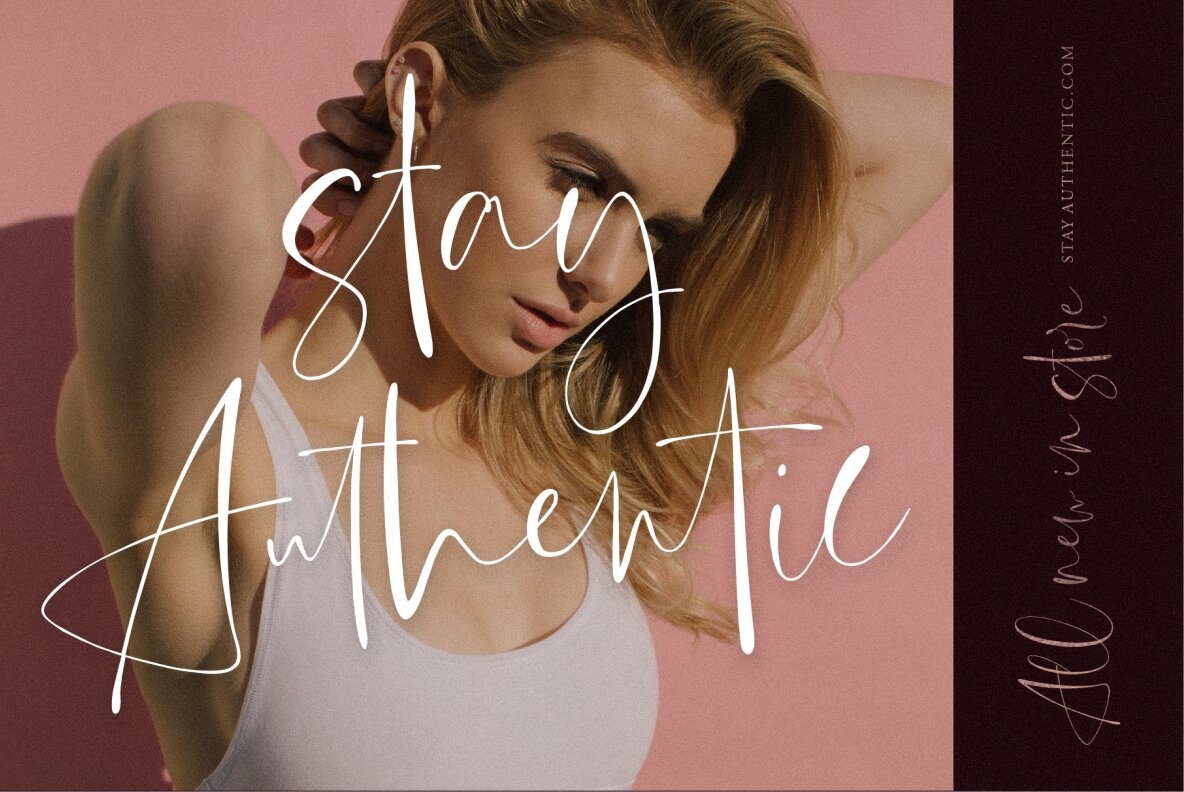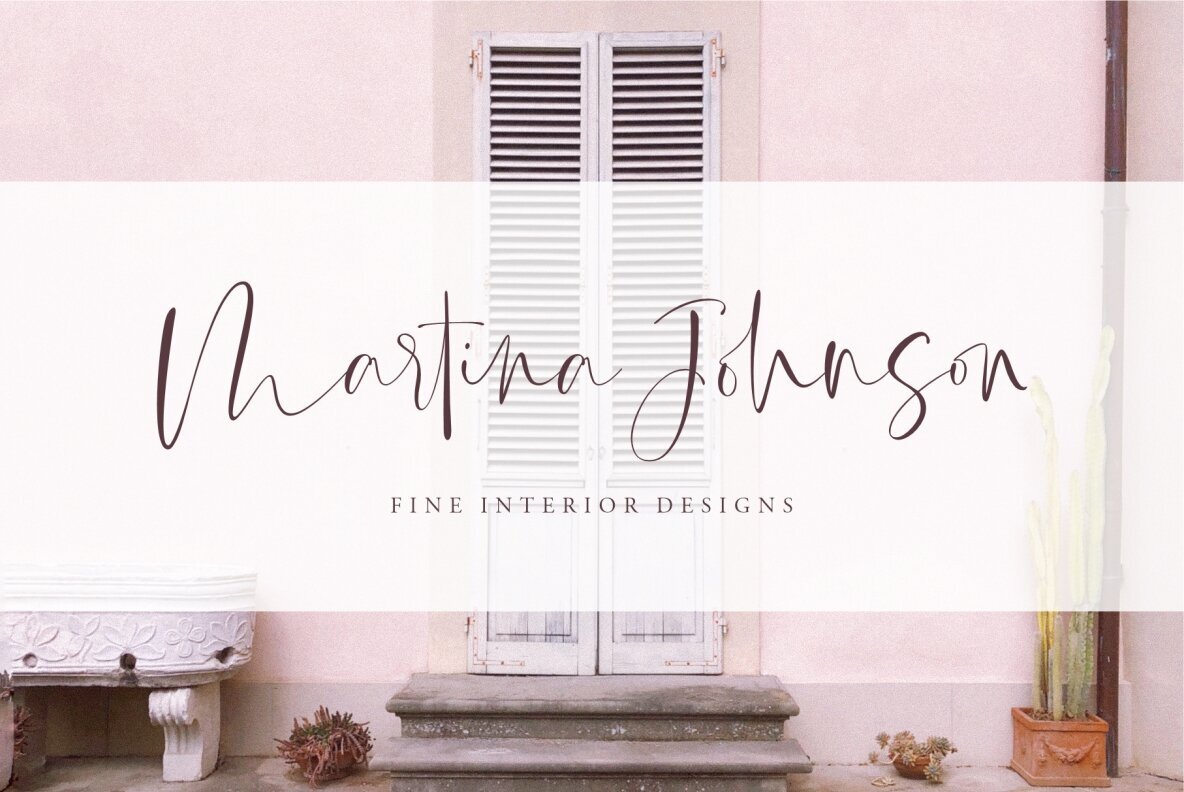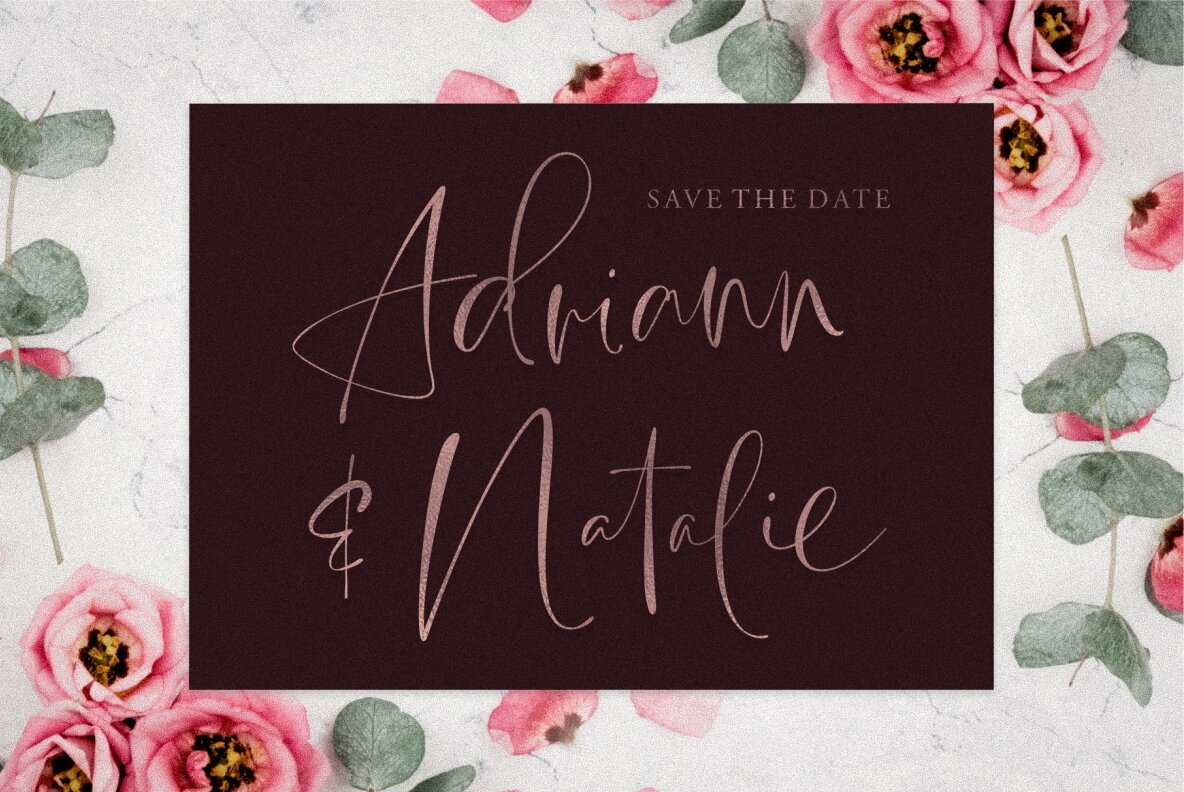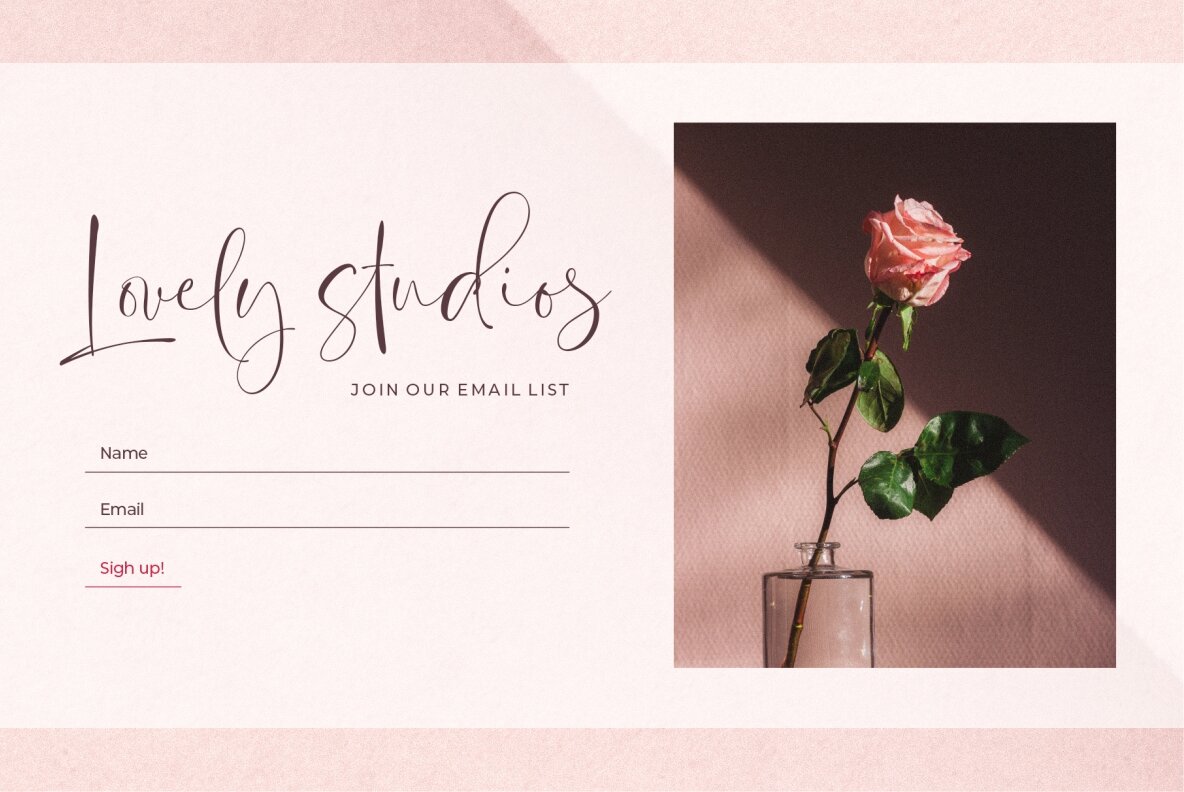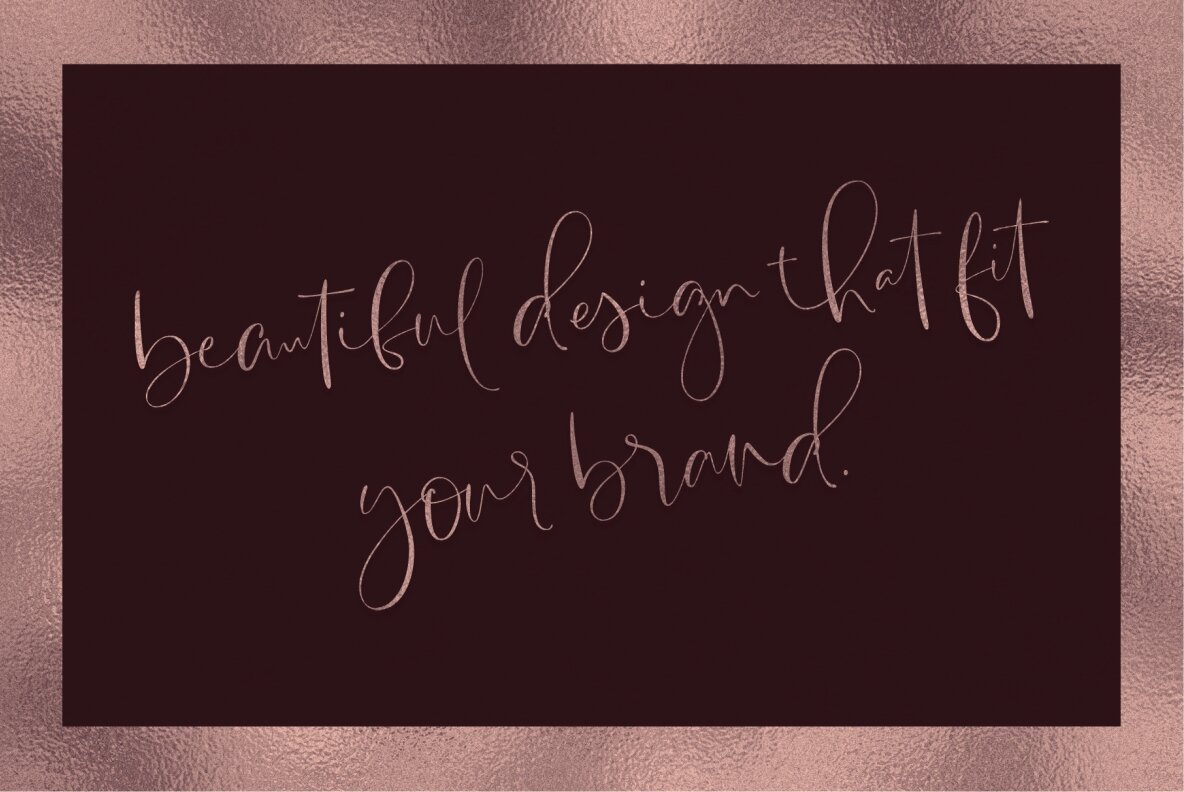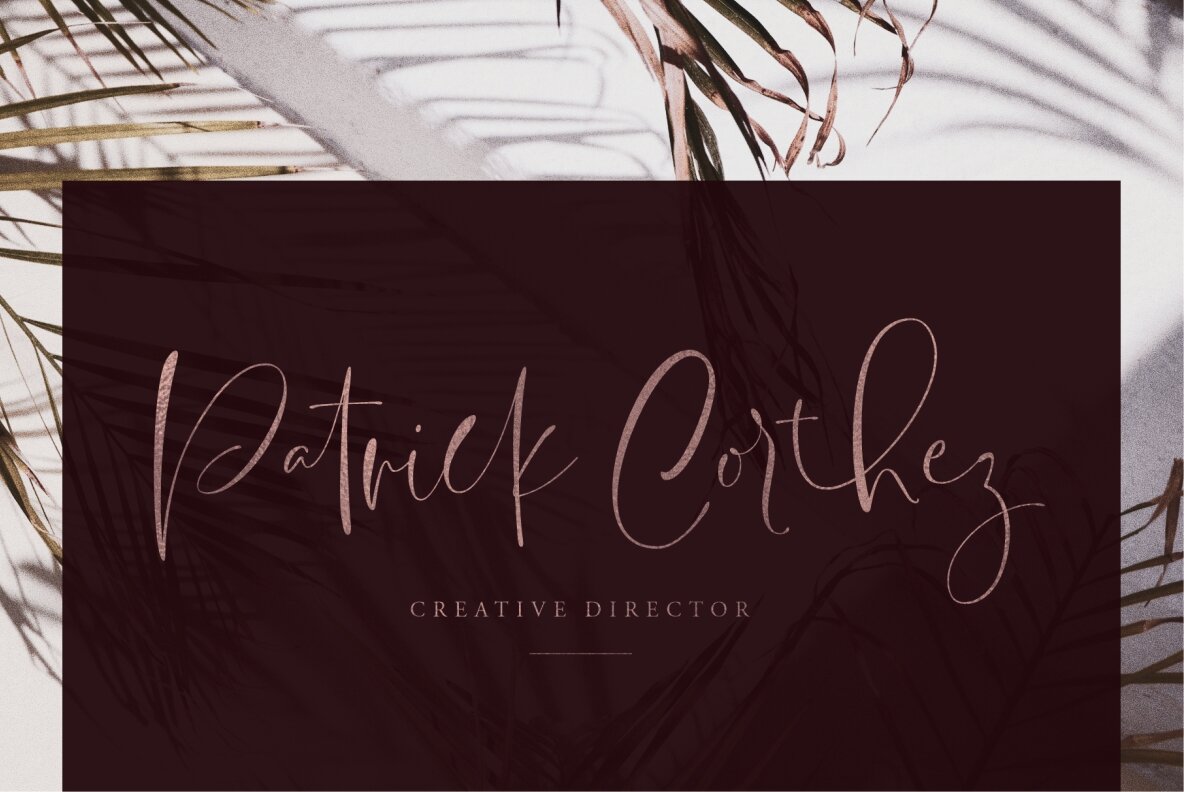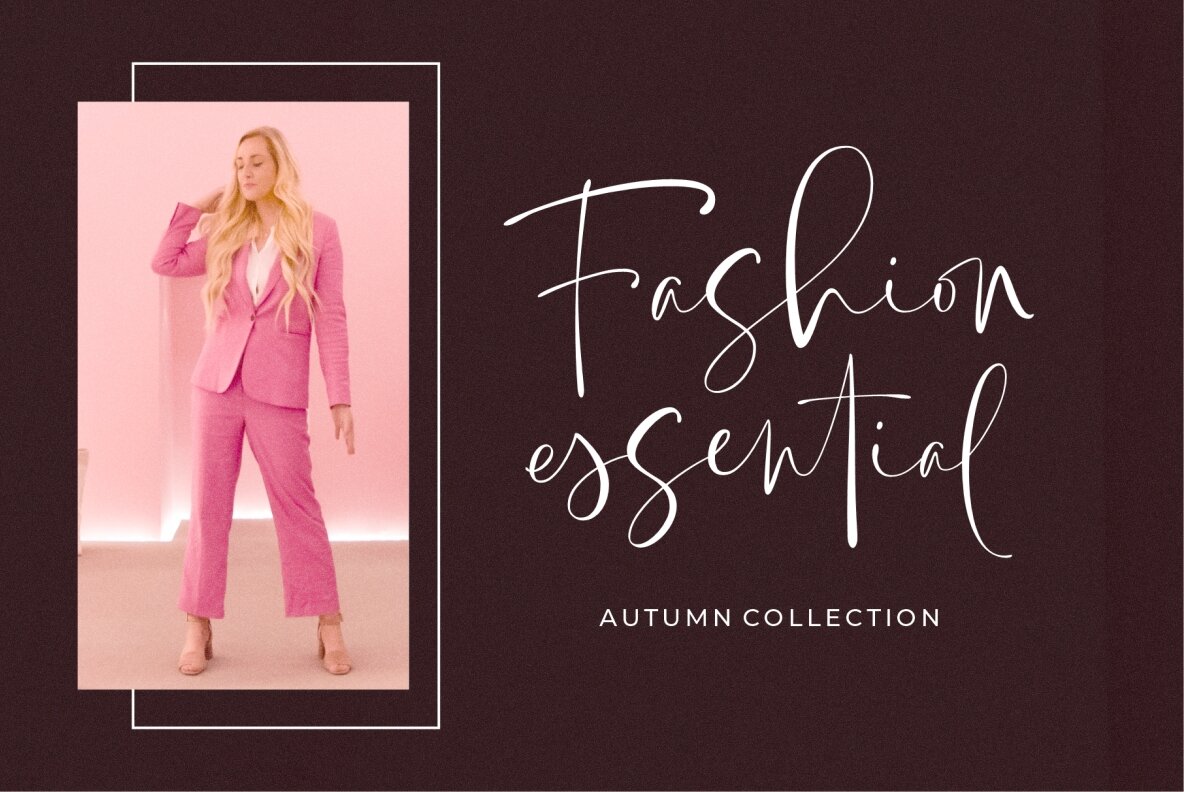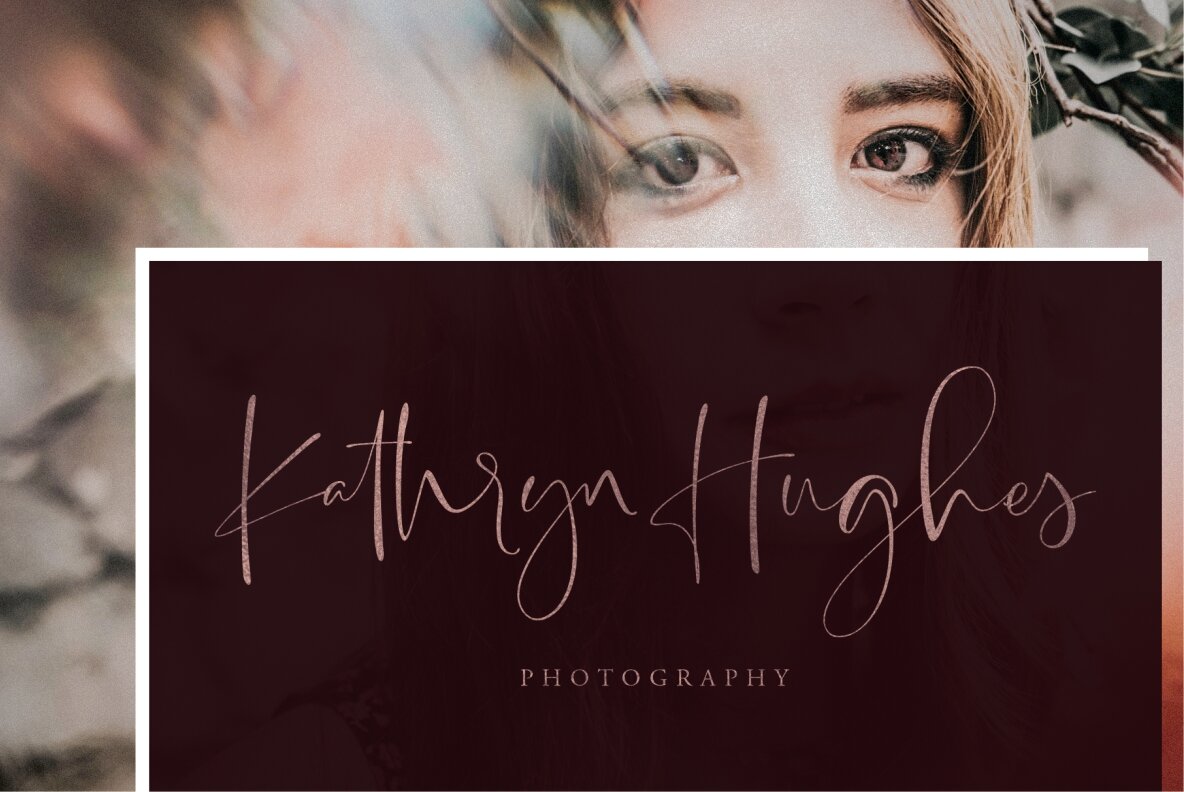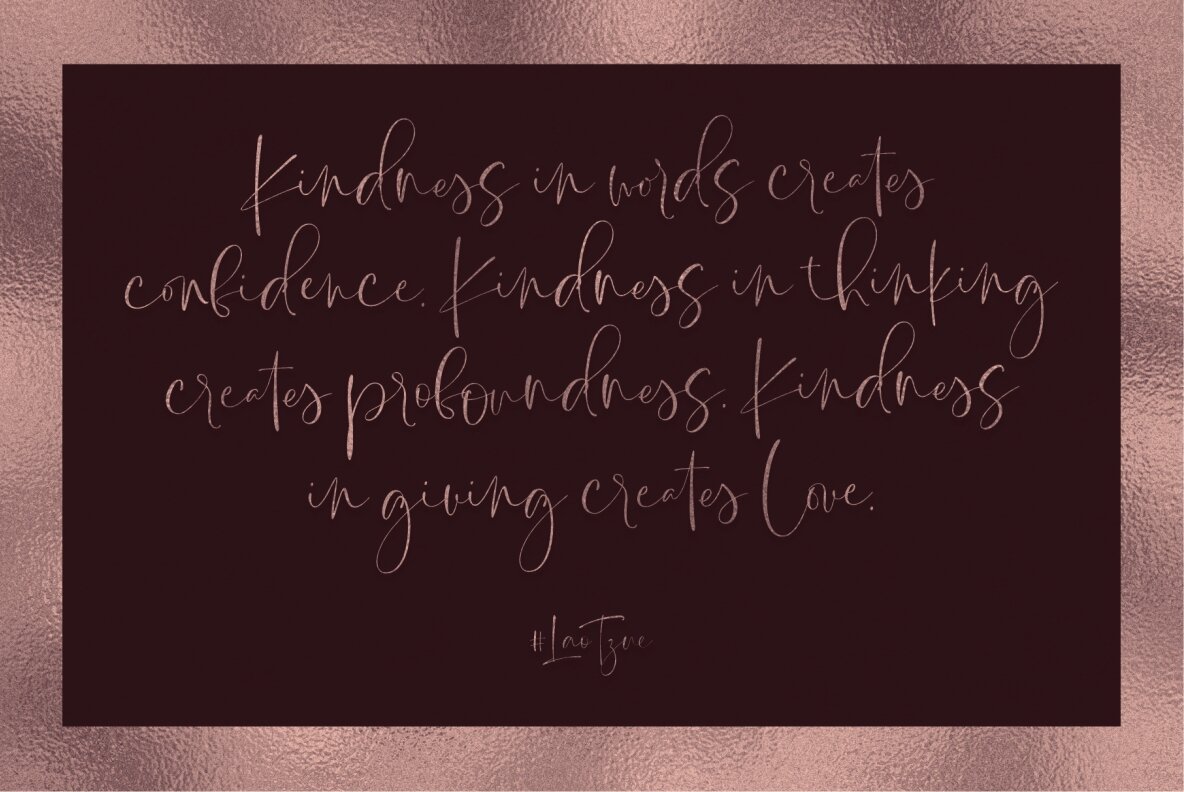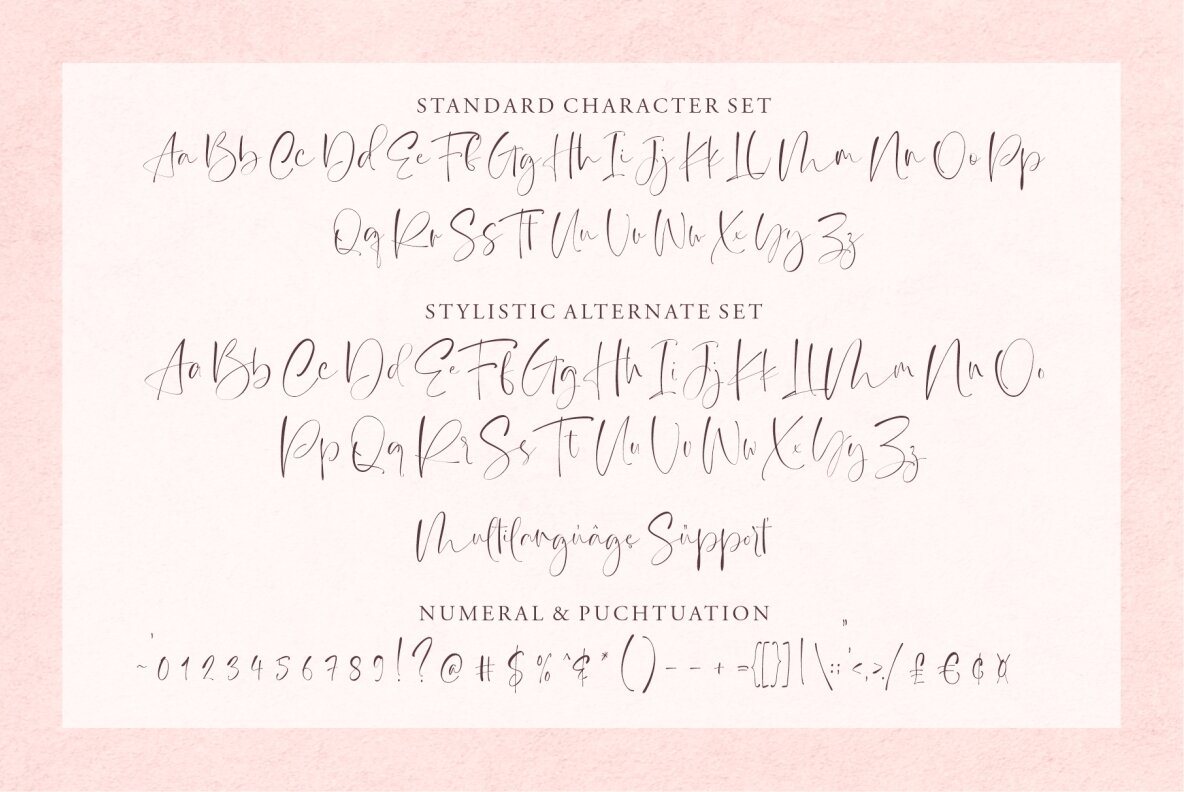
High Class Font
High Class Regular
High Class, a creation by Nurul Fajri Redy, stands as a testament to elegance in the realm of typography. This handwritten font exudes an air of sophistication, evoking images of high society and fashionable endeavors. With each character meticulously crafted, it seamlessly marries the refined aesthetics of bespoke lettering with a dynamic, high-end style. Its unique combination of imperfect letters and thoughtfully curated ligatures lends a vibrant yet polished touch to any project. The versatile nature of High Class makes it an ideal choice for a variety of purposes. From branding and logos to wedding designs and social media posts, this font meets the demands of diverse creative ventures. Its clean base is complemented by forms that brim with character, granting authenticity and flair. The elegance of its hand-drawn ligatures, punctuated by distinctive ampersands, ensures every use leaves a lasting impression.High Class: Handwritten Elegance for Sophisticated Designs